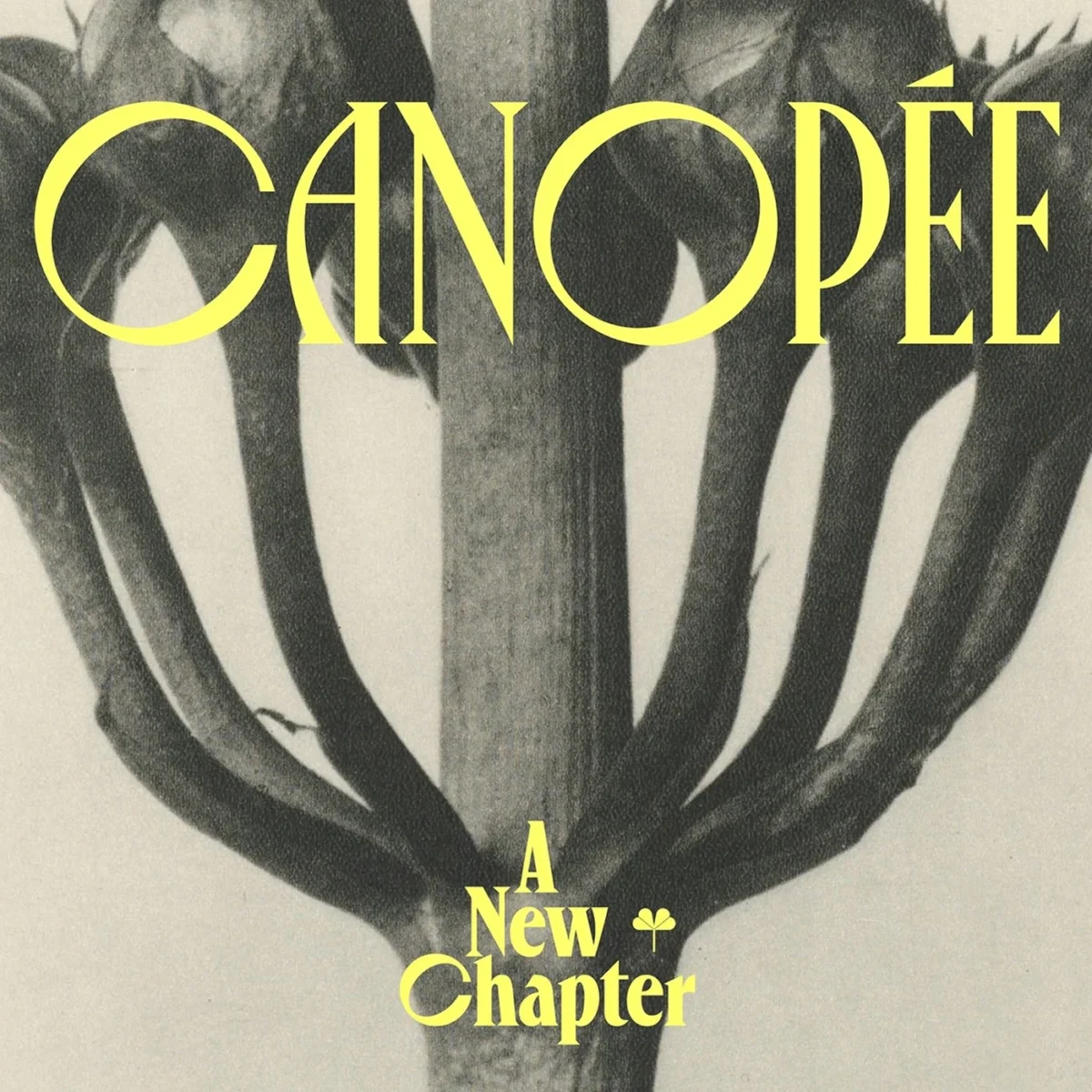
Parisian design studio Violaine & Jeremy, renowned for their distinctive aesthetic, has announced a significant update to their acclaimed display font, Canopée Typeface, marking a decade since its initial release. Launched through their VJ-Type foundry, the expanded collection introduces a sophisticated fusion of razor-sharp serifs with deeply organic, expressive letterforms, establishing a new benchmark in contemporary typographic design. This extensive revitalization, revealed on September 7, 2026, not only broadens the font family’s versatility but also deepens its unique character, offering graphic designers a powerful tool for crafting compelling visual narratives across diverse media. The refreshed Canopée now boasts an enriched array of new weights and meticulously refined styles, meticulously engineered to provide both robust clarity and nuanced artistic expression.
A Decade of Refinement: The Canopée Legacy and Evolution
The journey of Canopée Typeface began ten years ago when Violaine & Jeremy first introduced their display font to the design world. At its inception, Canopée quickly gained recognition for its distinctive personality, a blend of classic elegance and modern flair. However, as design trends evolved and the demands on typefaces grew more complex, the studio recognized the potential for further development. This latest release, coming a full decade after its debut, is not merely an incremental update but a comprehensive overhaul, transforming the family into a more versatile and expressive typographic system. The decision to expand Canopée was driven by a commitment to pushing the boundaries of traditional typography while addressing the evolving needs of graphic designers across print and digital platforms. The studio, known for its multidisciplinary approach encompassing illustration, graphic design, and type design, leveraged its deep understanding of visual communication to imbue Canopée with a richer, more nuanced voice.
The Anatomy of Design: A Symphony of Contrasts
At the heart of Canopée’s redesign lies a deliberate and masterful embrace of stark visual contrast. The updated glyphs feature precisely chiseled serifs that define their outer contours, creating an immediate impression of structural integrity, crispness, and authoritative presence. These "razor-sharp" serifs are a defining characteristic, providing a contemporary edge that grounds the typeface in modern aesthetics. In deliberate counterpoint, the inner curves of each letterform are imbued with a soft, organic warmth, pushing back against the rigid external frame. This dynamic interplay generates a palpable visual tension that animates every line of text, allowing the typeface to convey both authoritative precision and inviting fluidity simultaneously. This intentional duality, a hallmark of the studio’s sophisticated design philosophy, ensures that each character achieves a delicate equilibrium between geometric purity and natural grace.
The expansion of the Canopée family now includes an array of new weights and clean styles, significantly enhancing its adaptability. From delicate light cuts that offer a whisper of elegance to bold display weights that command attention, the typeface now provides a comprehensive palette for designers. This expanded range means Canopée can perform effectively in diverse applications, from the subtle nuances of editorial body text to the impactful statements of large-scale display titles. The result is a typeface that feels both inherently refined and pulsating with life, offering unparalleled flexibility for creating dynamic and engaging visual layouts.
Letter Width, Rhythm, and the Pursuit of Optical Balance
One of the most intricate aspects of Canopée’s redesign is the meticulous attention paid to letter width and the resulting rhythmic pulse it imparts to text. The typeface employs dynamic letter widths, where slim glyphs sit harmoniously alongside broader, wider shapes. This intentional variation creates a natural ebb and flow, guiding the reader’s eye effortlessly across the page. This "tight and open pace" is a sophisticated technique designed to enhance readability and visual engagement, preventing monotony and adding a distinct character to text blocks.
The development of the full lowercase set alone was an undertaking spanning more than two years, a testament to the rigorous attention to detail invested in this project. During this intensive period, Violaine & Jeremy collaborated closely with talented type designers Hélène Zhang and Lucille Alepis, whose expertise was crucial in shaping the new family. A particular challenge was ensuring that round glyphs, such as the letter ‘O,’ maintained their integrity and visual weight without appearing weak or disproportionately dominating the line. The designers masterfully achieved this by incorporating subtle optical adjustments, ensuring that the ‘O’ remains perfectly round yet possesses a delicate "off-note" that imbues each word with a fresh, almost handcrafted charm. This meticulous balance of form and counter-form anchors the bold typography design, allowing it to function effectively at both micro and macro scales.
Inspiration from Nature and the Masters: Crafting the Visual Narrative
The aesthetic underpinning of the new Canopée Typeface draws inspiration from a rich tapestry of art and natural forms, masterfully woven into its presentation. Print specimens of the typeface eloquently pair detailed font charts with historical botanical prints, notably those from the pioneering photographer Karl Blossfeldt. Blossfeldt’s iconic close-up photographs of plants, celebrated for their stark clarity and structural beauty, serve as a profound mirror to the soft, organic curves inherent in Canopée’s letterforms, highlighting the natural elegance embedded within its geometric framework.
Further enriching the visual narrative are still-life photographs by Vincent Gapaillard, which add layers of rich texture and depth to the specimens. These artistic choices are not merely decorative; they underscore the typeface’s ability to maintain crisp clarity in small print captions, while simultaneously revealing the fine craftsmanship of its sharp brackets and intricate details when scaled to huge display sizes. The use of black and white layouts throughout the specimen book provides ample space for the letterforms to breathe, allowing their unique characteristics to stand out without distraction. Furthermore, the crisp serifs have been engineered to hold ink exceptionally well, even on uncoated art paper, ensuring superb legibility and aesthetic integrity across a wide range of printing applications. This robust performance makes Canopée an ideal choice for high-contrast headlines that demand attention on large printed posters, cementing its status as a versatile typography design for virtually all editorial layouts.
Industry Insights and Broader Implications
The release of an updated typeface of Canopée’s caliber carries significant implications for the graphic design industry. In an era where digital communication dominates, and visual branding is paramount, the demand for distinctive, high-quality typefaces has never been greater. Violaine & Jeremy’s commitment to refining and expanding an already successful typeface speaks to a broader trend in typography: the ongoing pursuit of both aesthetic originality and functional versatility.
A spokesperson for VJ-Type, speaking on the occasion of the launch, articulated the studio’s vision: "Our goal with the new Canopée was not just to add more styles, but to deepen its expressive range. We wanted to create a typeface that could embody both classical elegance and modern dynamism, a tool that empowers designers to tell richer, more nuanced stories. The challenge was immense, particularly in balancing the sharp geometry with organic warmth, but the dedication of Hélène and Lucille, alongside our team, brought this vision to fruition. We believe Canopée will serve as a cornerstone for contemporary editorial and branding projects."
Availability and Further Exploration
The complete Canopée font family is now available for discovery and licensing on the VJ-Type platform. Designers and enthusiasts are encouraged to explore the full capabilities of this expanded collection. Furthermore, a comprehensive review of the entire release, including detailed character sets, specimen layouts, and design rationale, can be found on Violaine & Jeremy’s official portfolio. This provides an in-depth look at the craftsmanship and philosophy behind a typeface poised to make a lasting impact on contemporary visual communication.